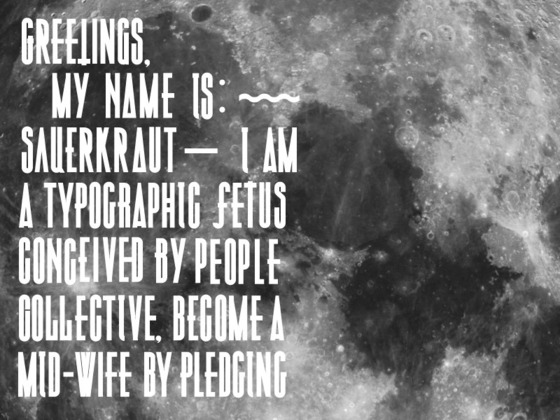
We want to make a commercial quality typeface, and give it away for free.
Last year, we started playing with the idea of designing and distributing a typeface in the public eye, which we could then make freely available. The concept was to see if we could come up with an alternative to the common licensing model, which involves designing and developing a typeface with one's own resources, and then trying to recover the costs by selling a license to use that typeface.
This year, we’re putting that idea into effect. Through Kickstarter, we’re hoping to raise enough funds to cover the cost of developing Sauerkraut into a commercial level, open-type typeface, which upon completion, will be made freely available for download through our website. The typeface will be a single weight to begin with, and rather than upper and lower-case, each character will have at least 1-2 alternates. This will result in a full 256 character-set typeface with glyphs, ligatures and a bevy of alternates. The images you currently see of the typeface we're calling "Sauerkraut" represent our initial draft, a rough sketch of A–Z with some alternates. The working files will also be available, so that anyone can download and modify the typeface. The funding will also help to cover the printing and material costs for the pledged prizes, which we will be producing in collaboration with a number of Melbourne based printers and designers, including A Small Press, United Measures and Tim Flemming from Flatland OK.